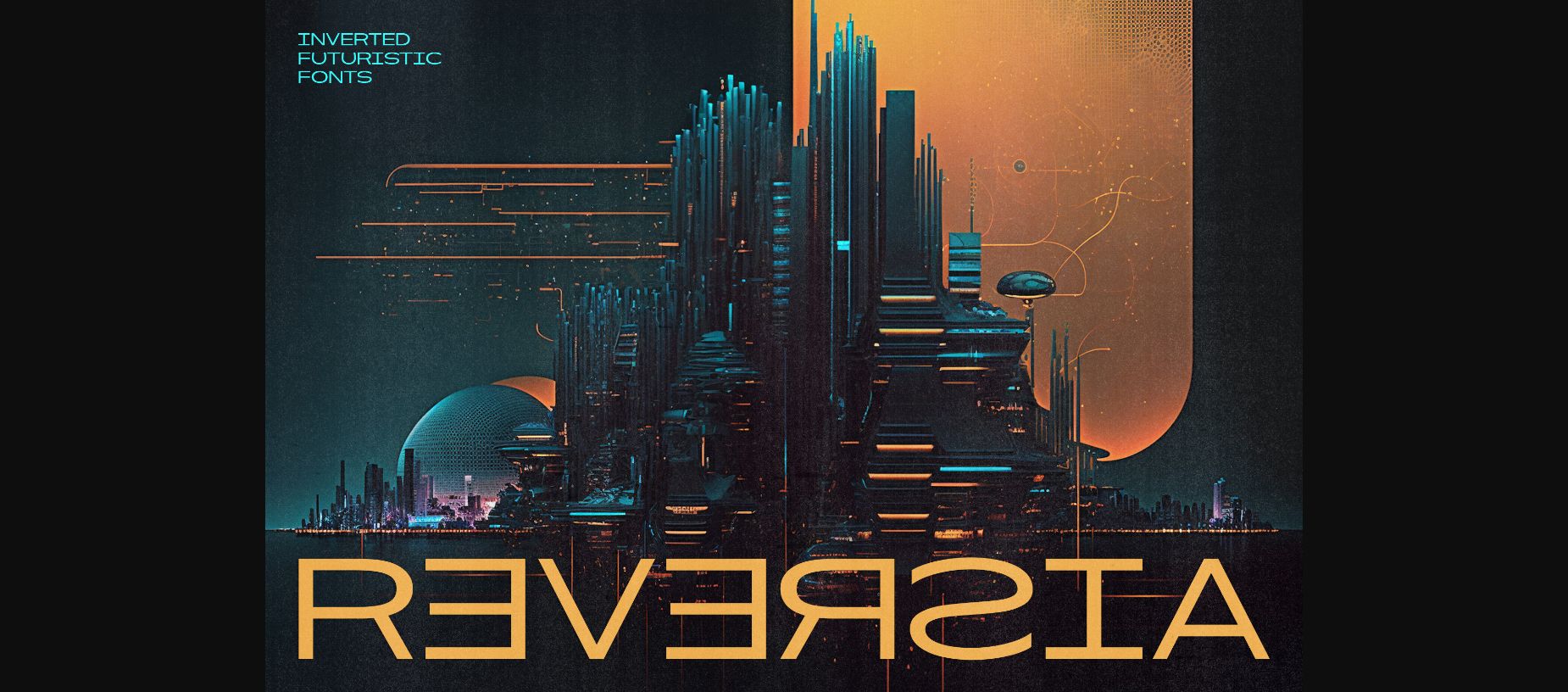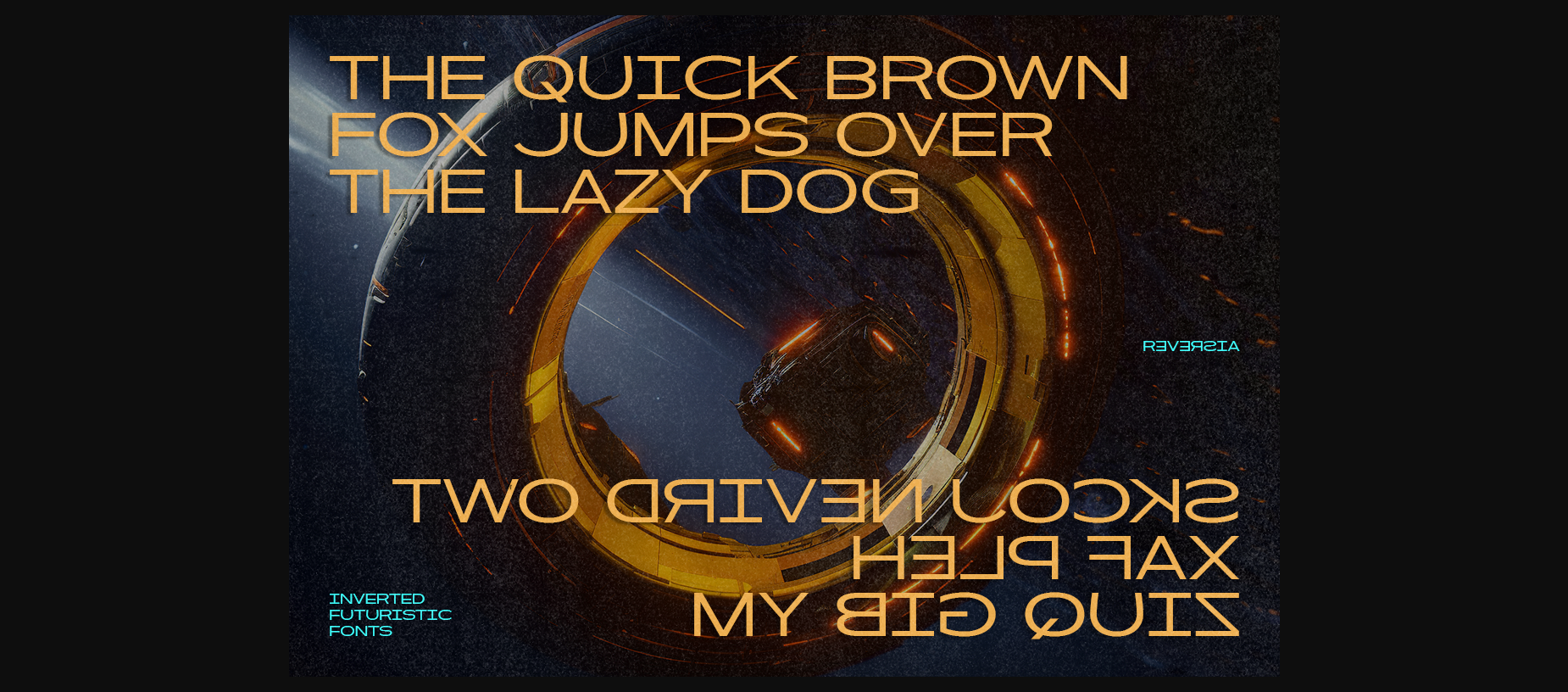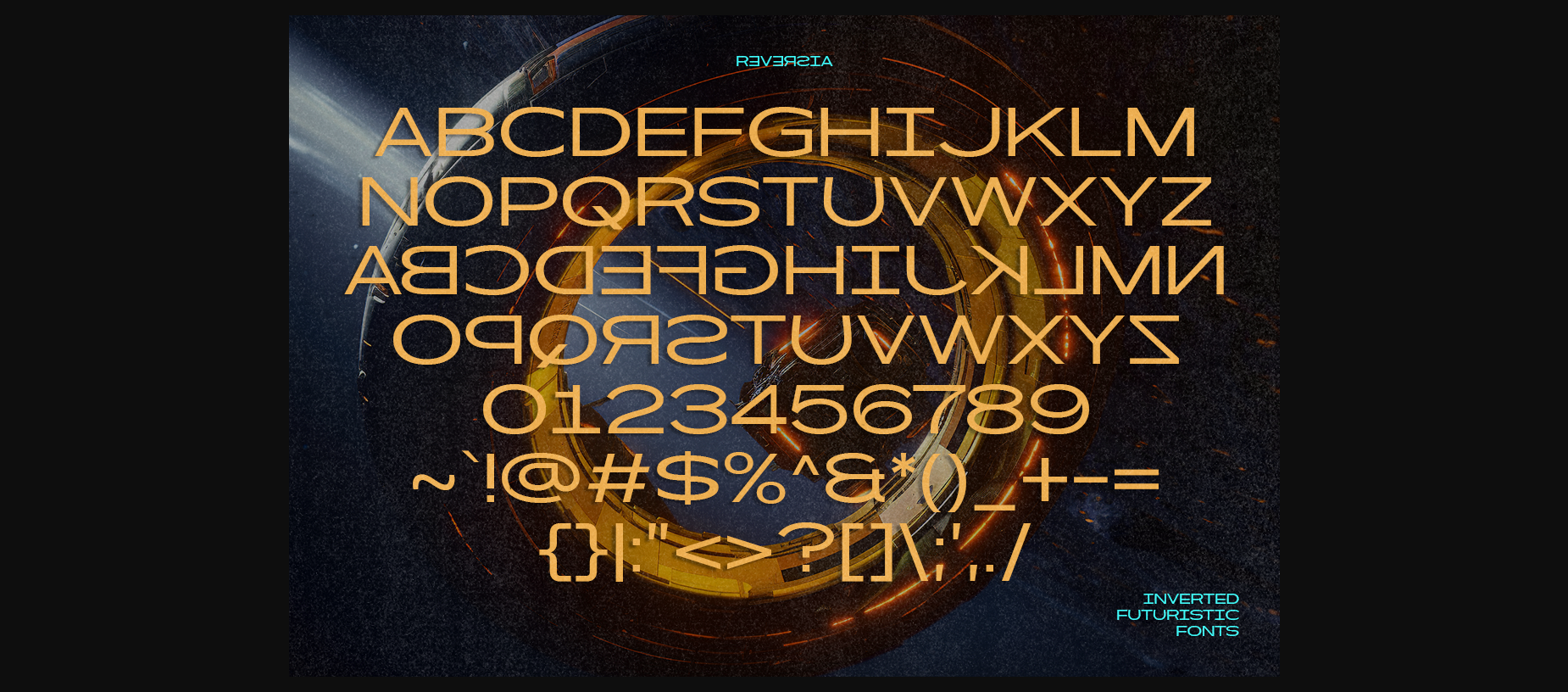
Reversia Font
About Reversia Font
Are you ready to revolutionize your design projects with the avant-garde appeal of Reversia? Explore the captivating world of inverted futuristic fonts that challenge the ordinary. Break free from convention and embrace a new era of creativity. Elevate your designs to a whole new level with Reversia’s innovative, bold, and daring fonts. Embrace the future of typography today!